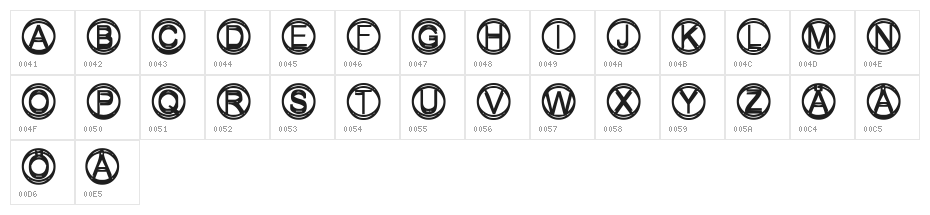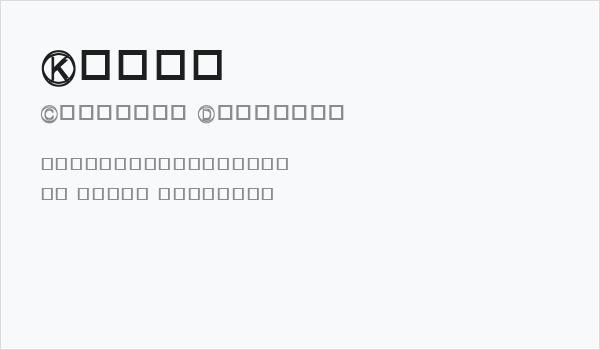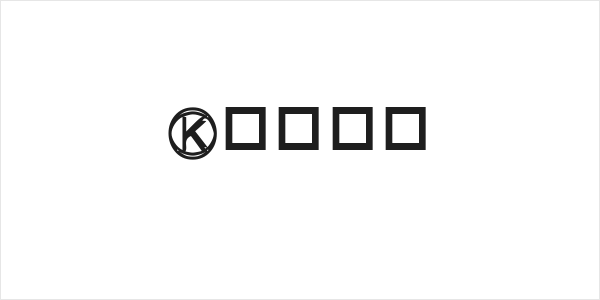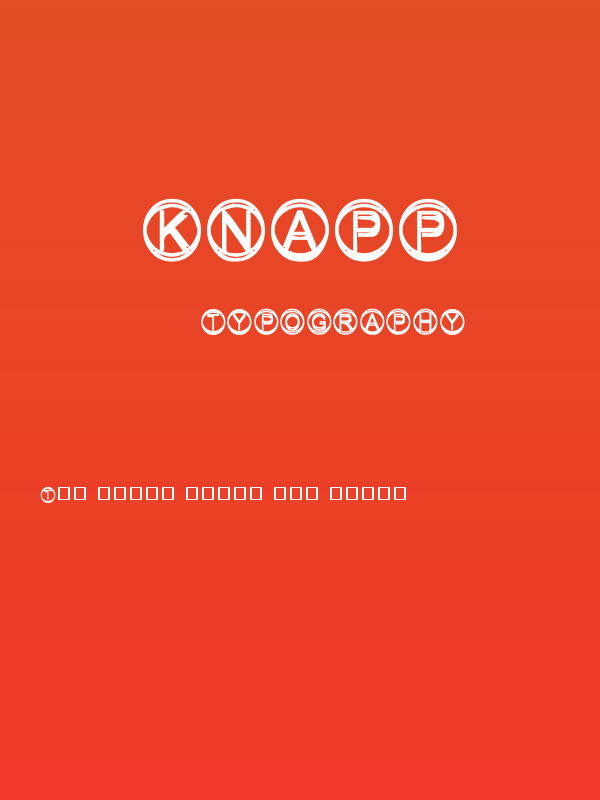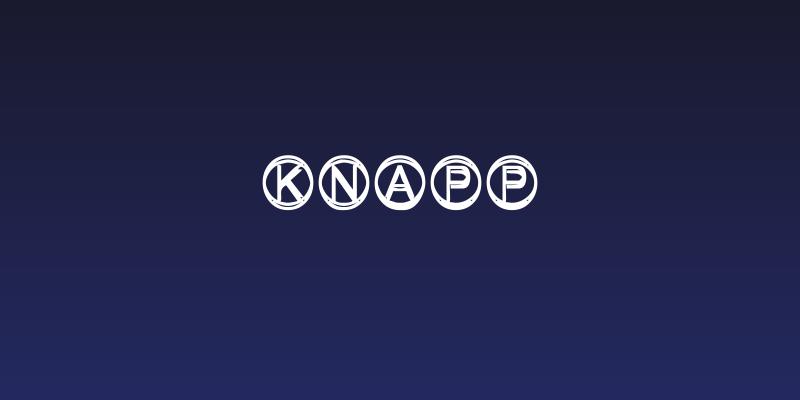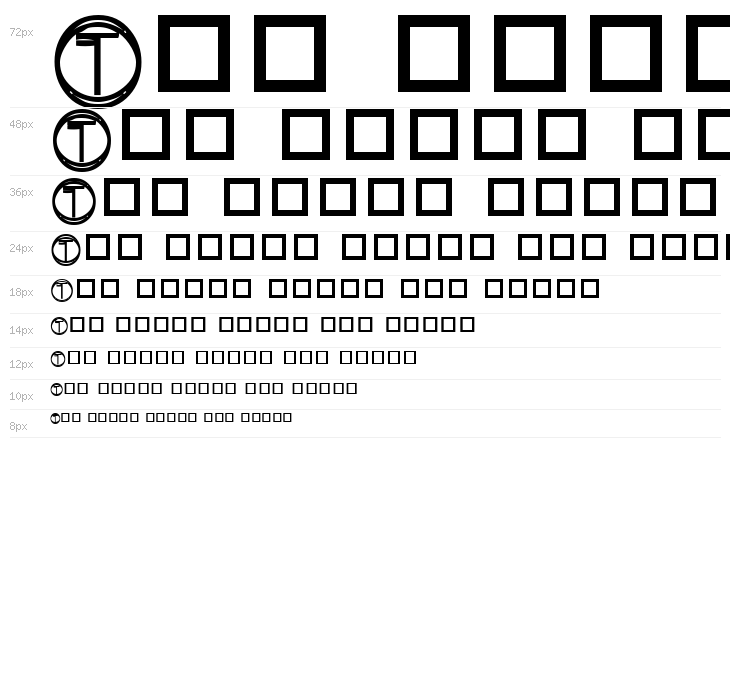
Knapp Font
Knapp Description
This font features uppercase letters encased in double concentric circles, creating a bold and striking appearance. The letters are sans-serif, with clean lines and a modern aesthetic. The overall design is geometric, with each character perfectly centered within its circular frame. This style is reminiscent of vintage signage or logos, offering a unique blend of retro and contemporary vibes. The absence of lowercase letters and numbers suggests a focus on decorative or headline use, where impact and visibility are key. The special characters are not present, indicating a limited character set primarily for display purposes.
Proposed ProjectsIdeal for logos, branding, posters, and any design requiring a strong visual impact.